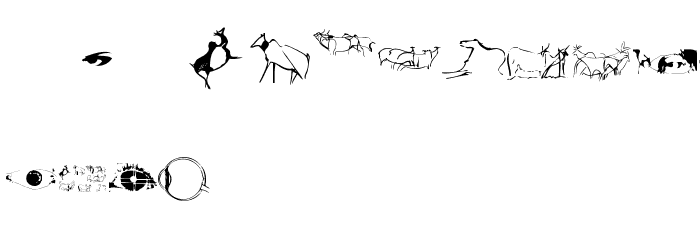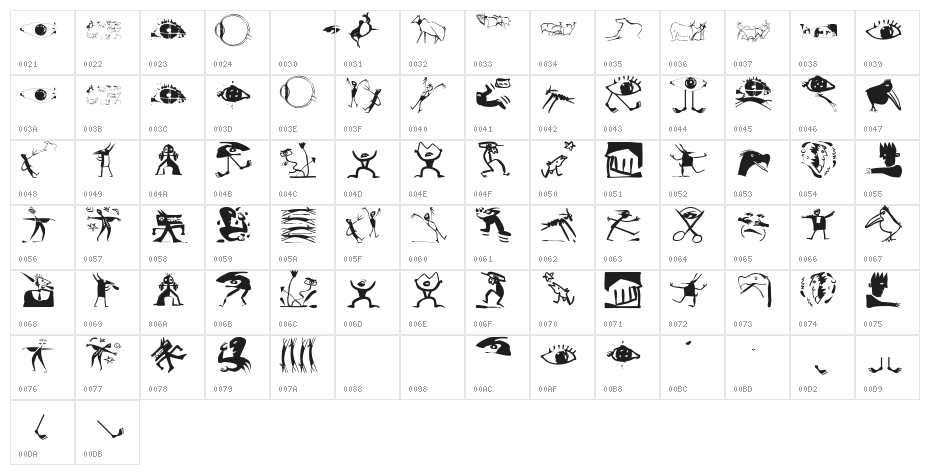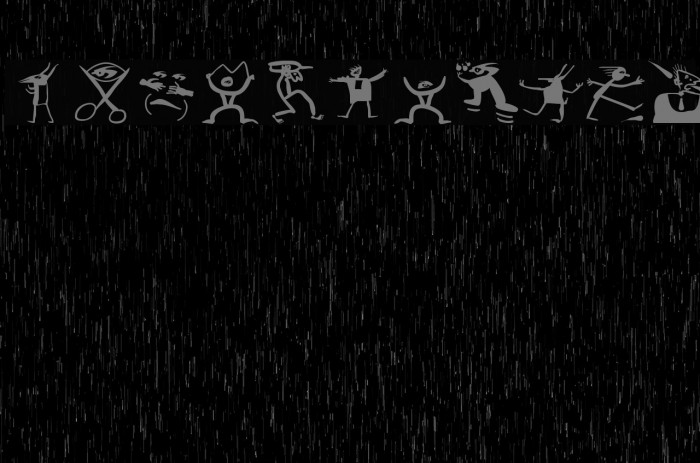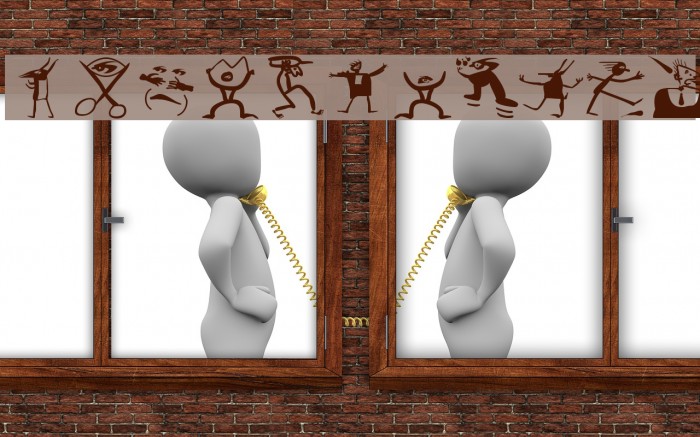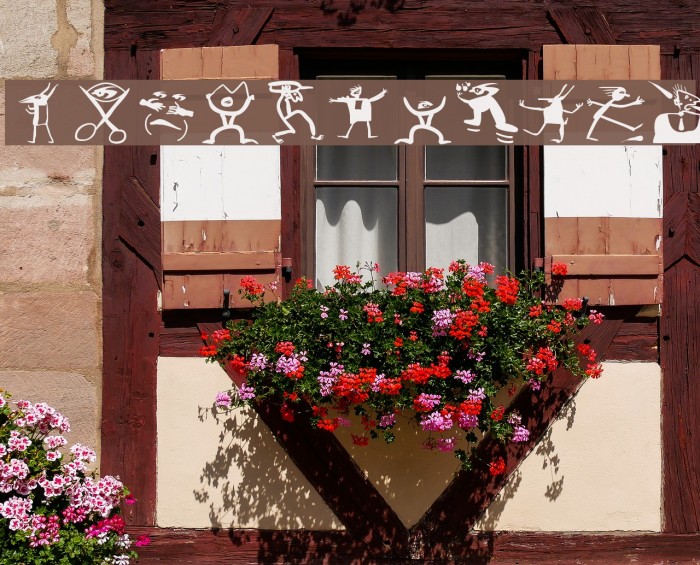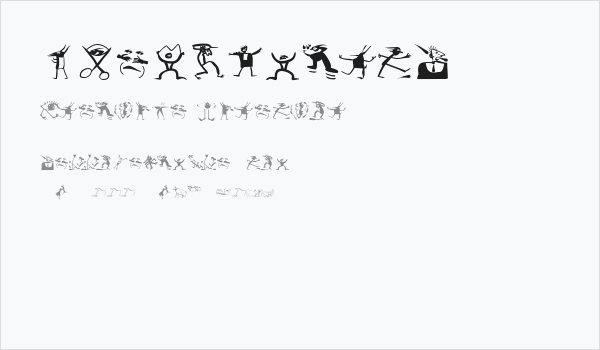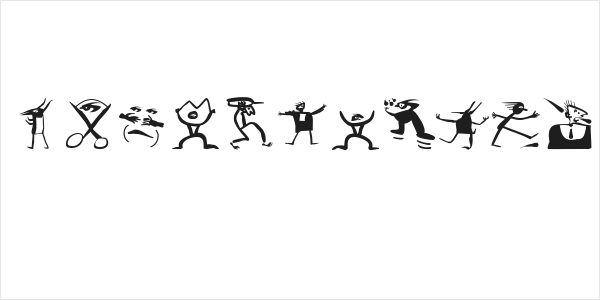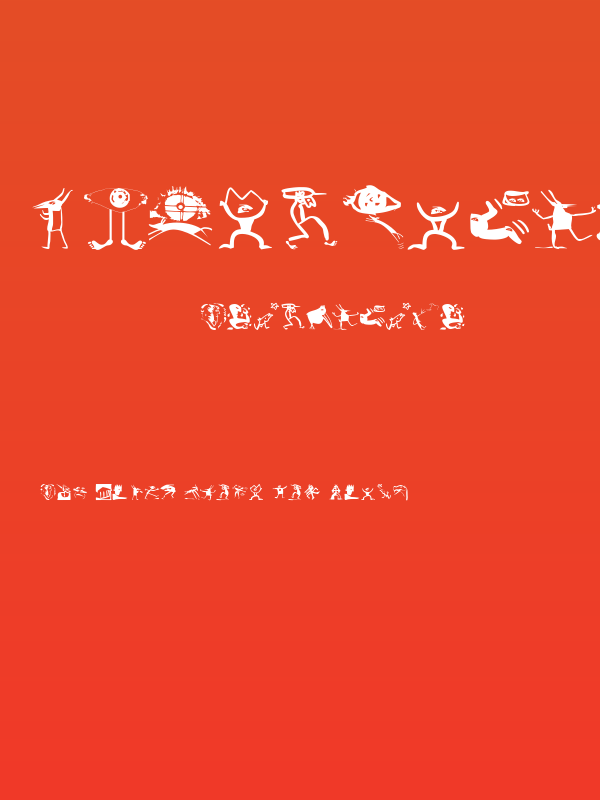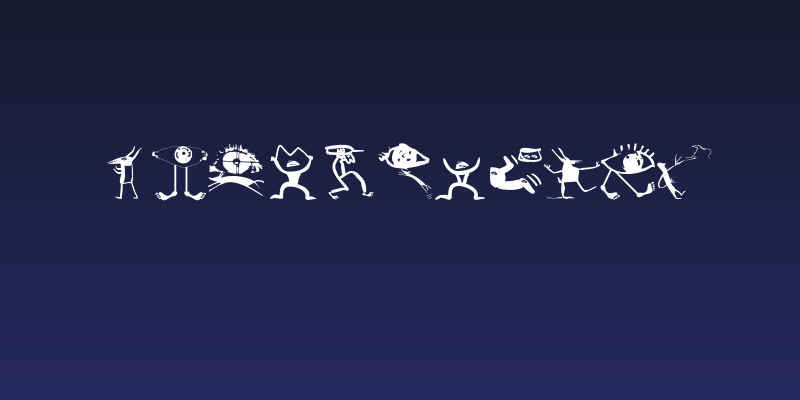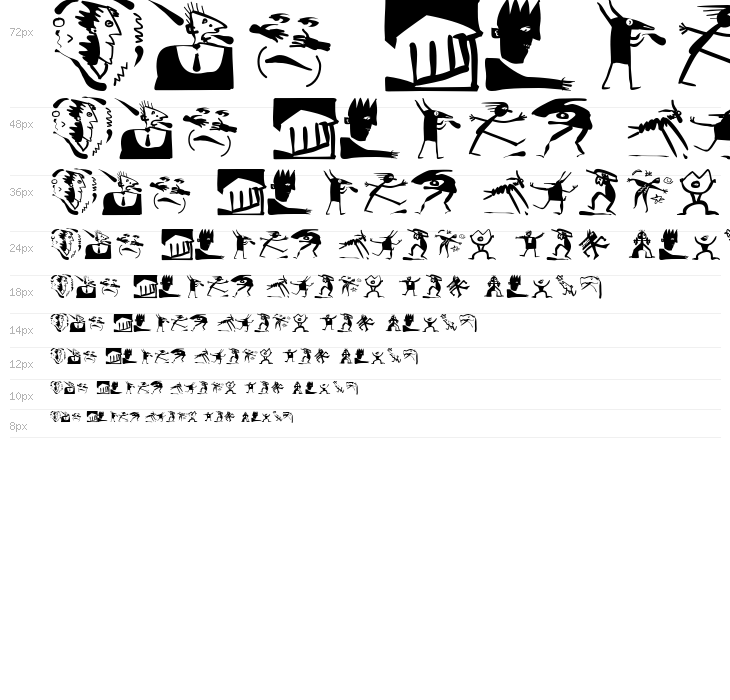
IdenOfMarch Font
IdenOfMarch Description
This is a highly decorative and illustrative font that features a series of whimsical and abstract characters. Each character is a unique drawing, resembling a mix of doodles and artistic sketches. The style is playful and imaginative, with elements that appear hand-drawn and cartoonish. The characters include a variety of shapes and figures, some resembling animals or human-like figures, while others are abstract forms. The font lacks uniformity in shape and size, contributing to its quirky and artistic appeal. It is not suitable for traditional text but serves as a creative tool for artistic projects.
| Use Case | Artistic projects, creative displays, unique branding elements. |
| Proposed Projects | Ideal for creative projects such as posters, album covers, or any artistic endeavor that requires a playful and unique visual element. |